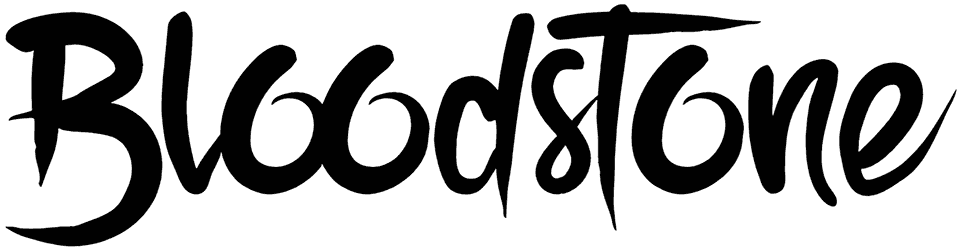
Bloodstone Font
If you feed on outstanding script fonts and your undertaking needs a bit more friendly feeling in its fabric, visit our amazing post and appreciate it. Here, Bloodstone, with its marker face, comes across to show off its utmost to deliver satisfying effects with its sweet vintage touch.
This brush font with A-Z characters could accent your illustration in a catchy, true way. Catch it for free and leave them to cast a spell on your lettering and flourish!